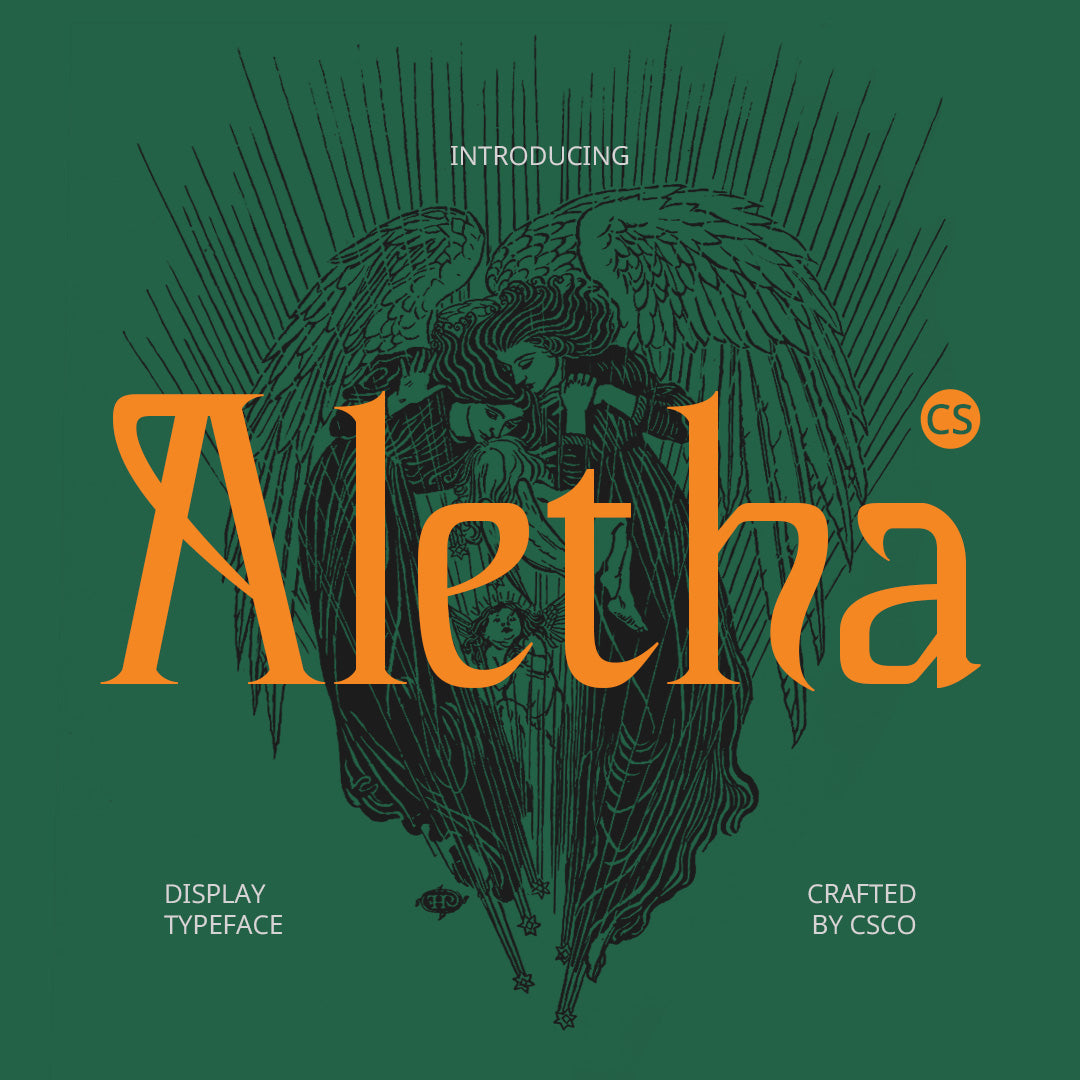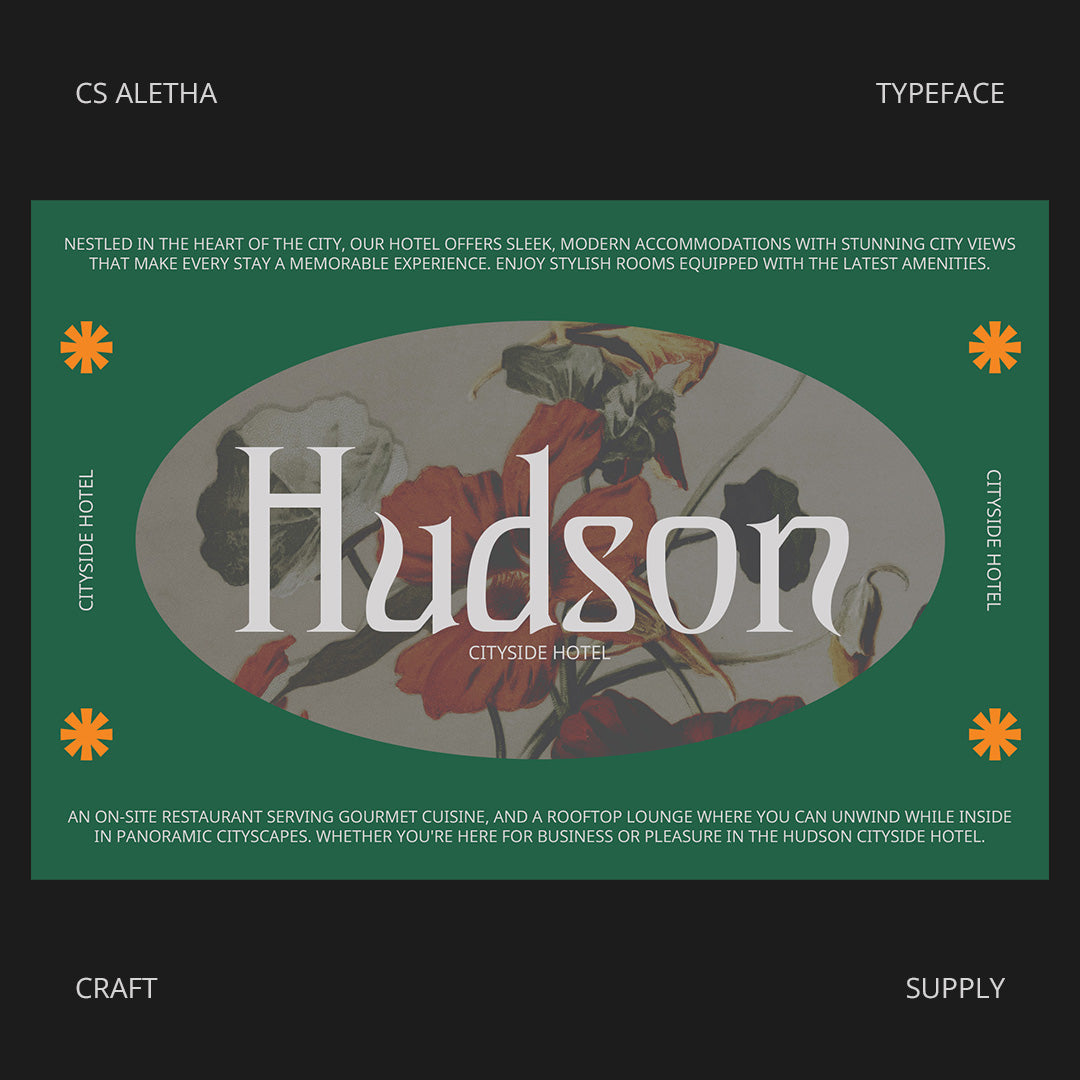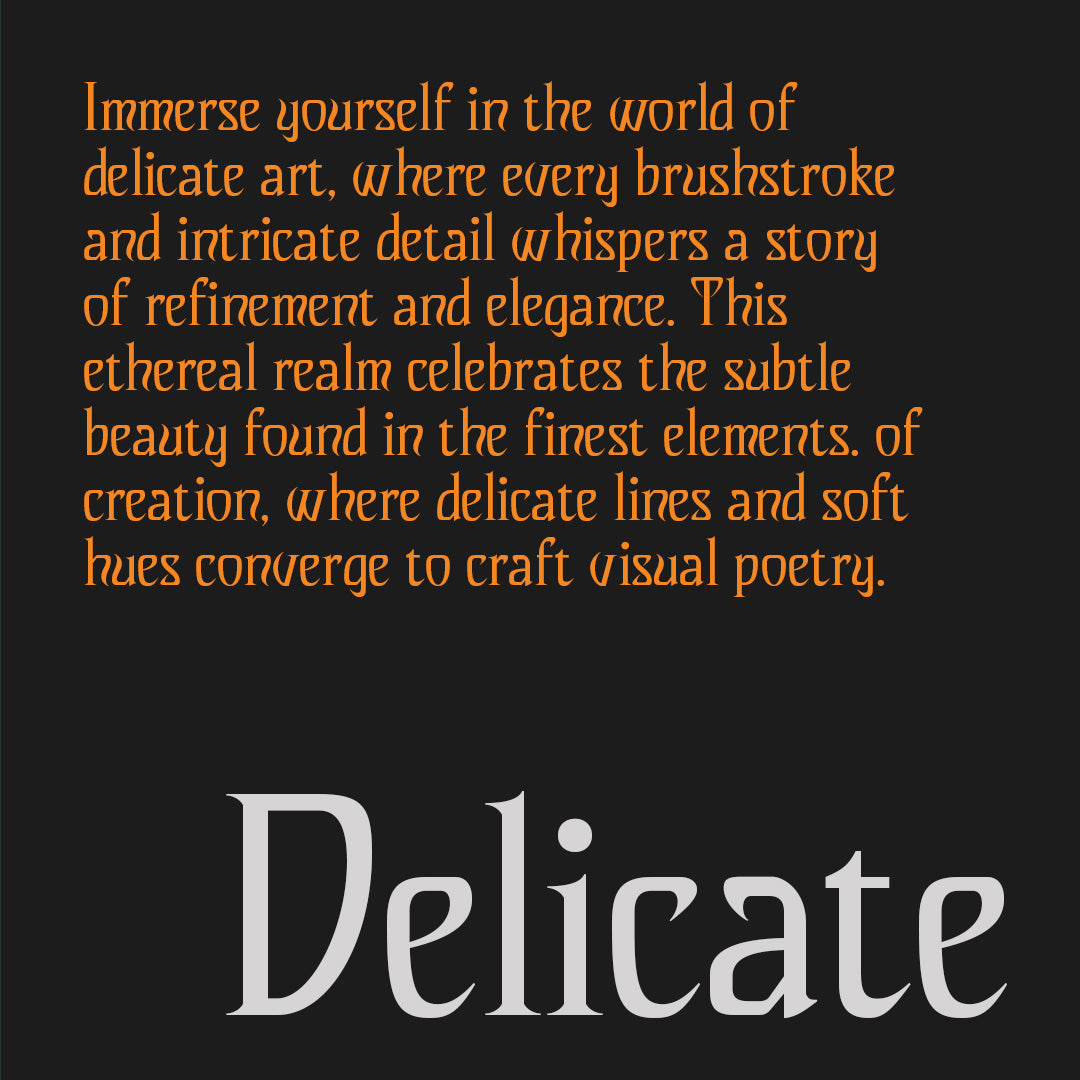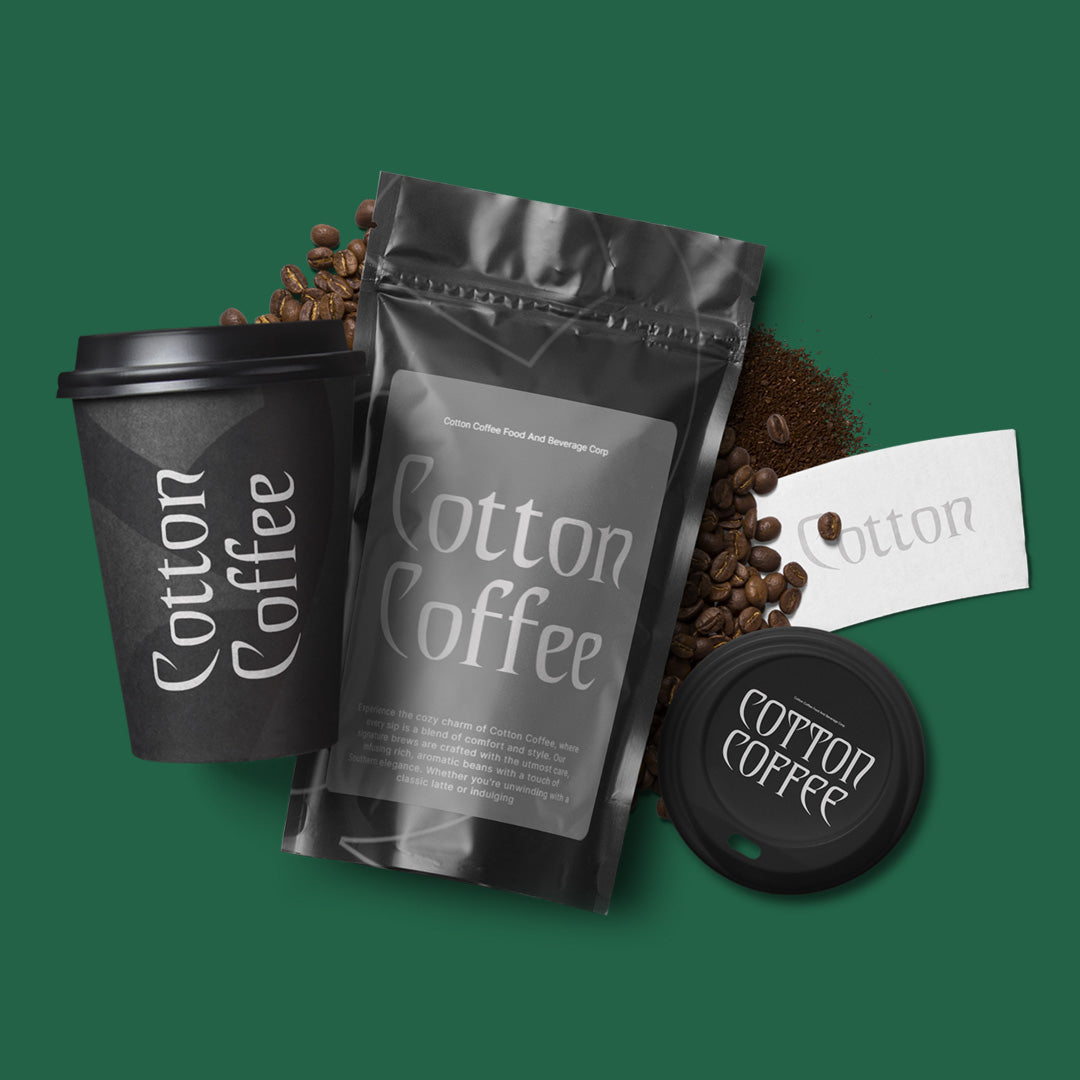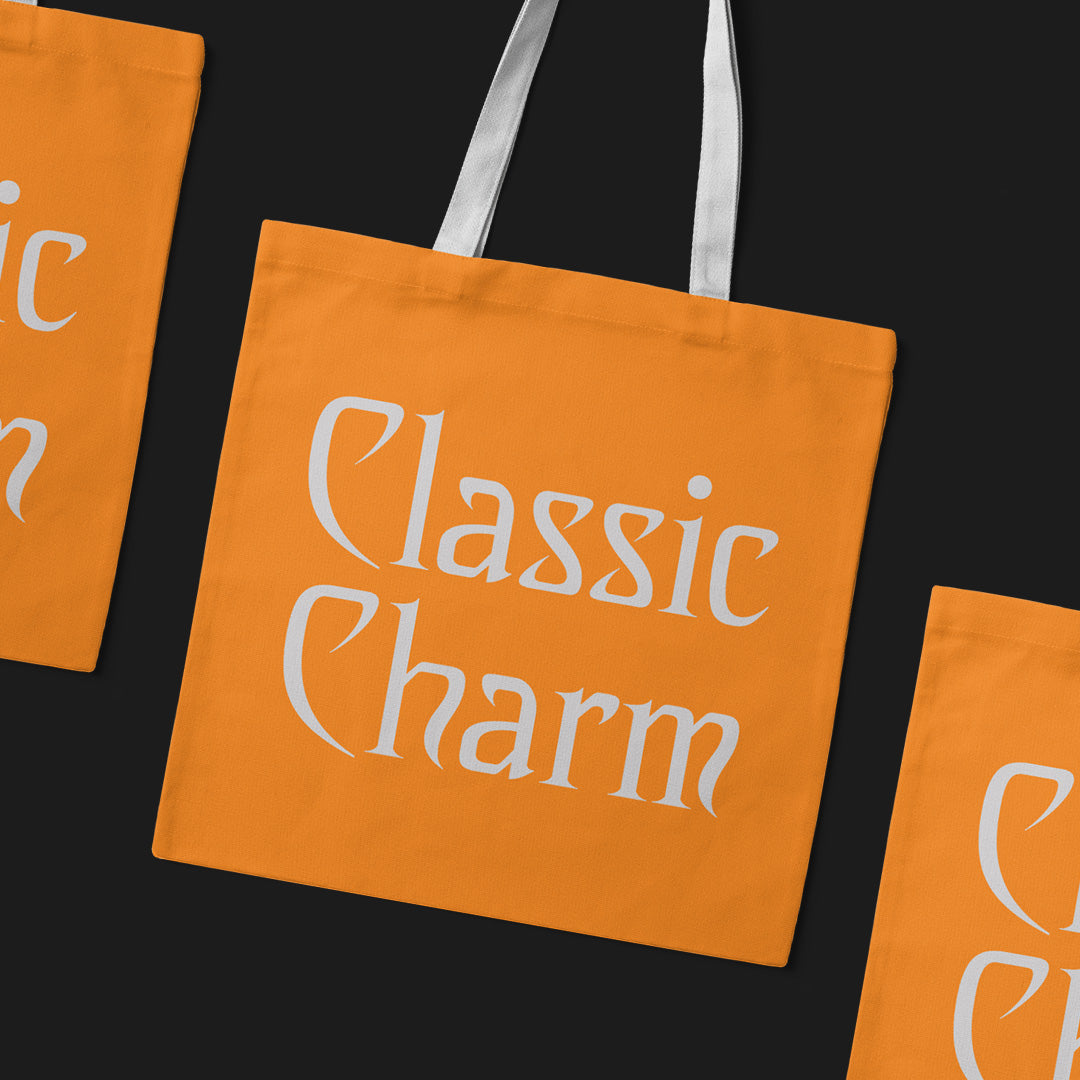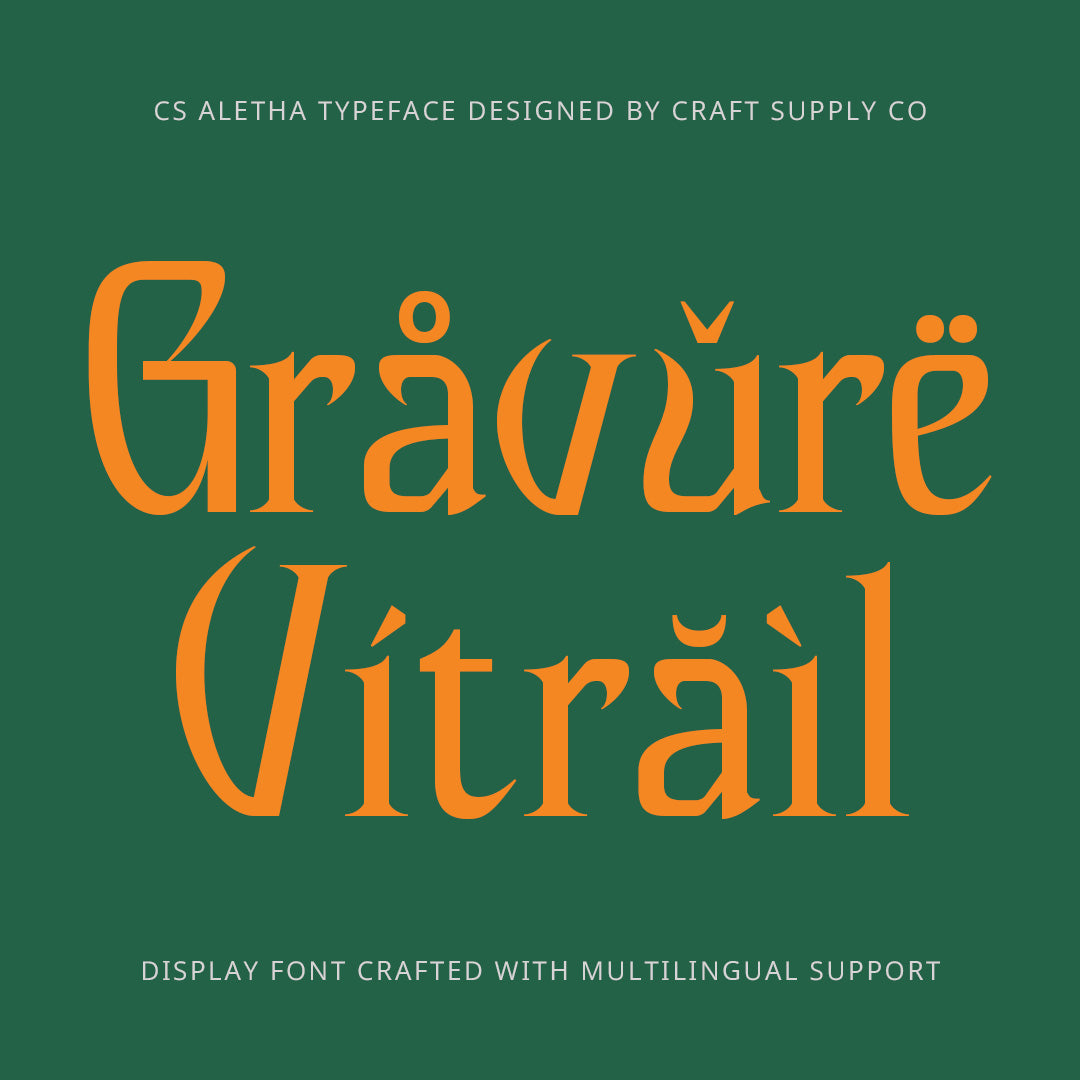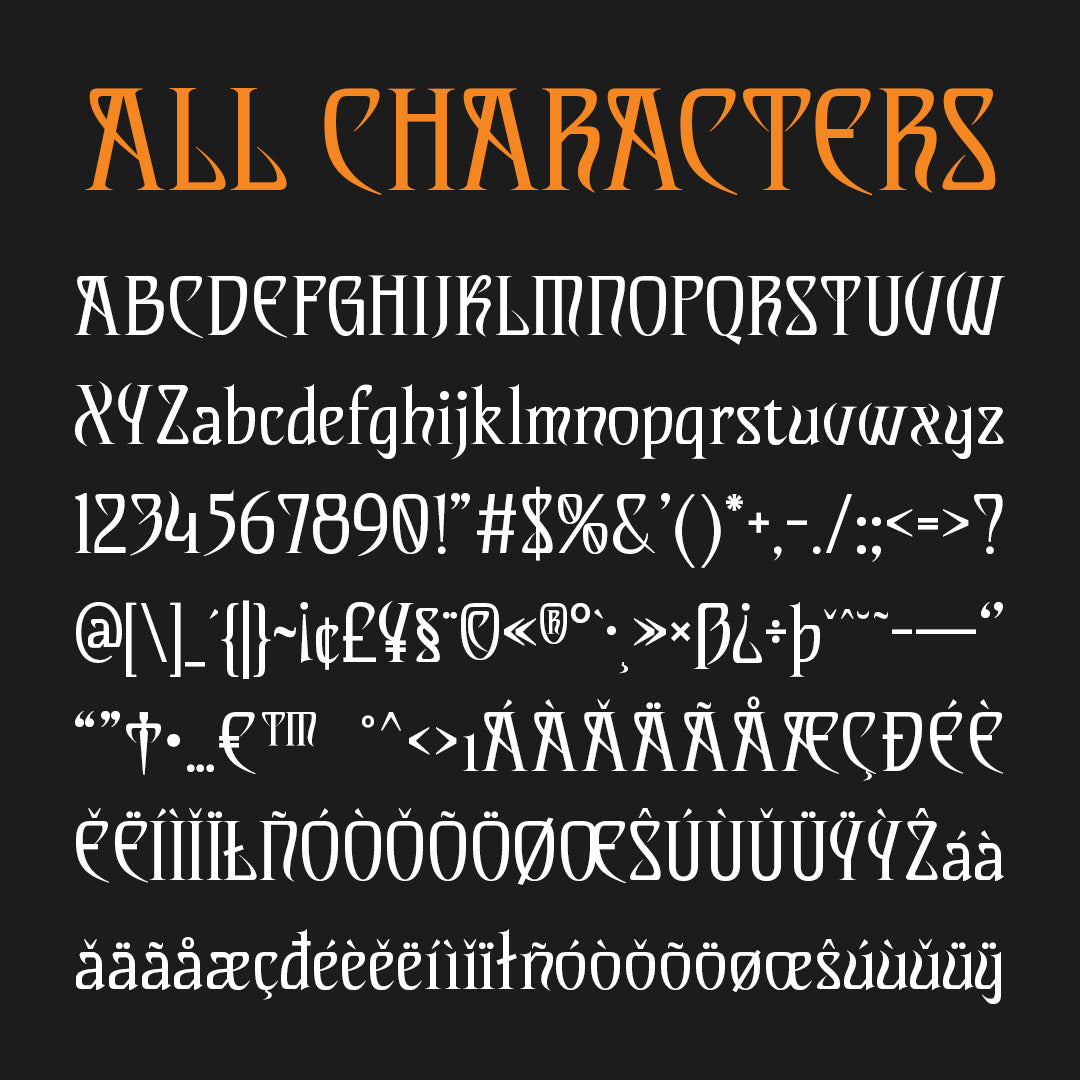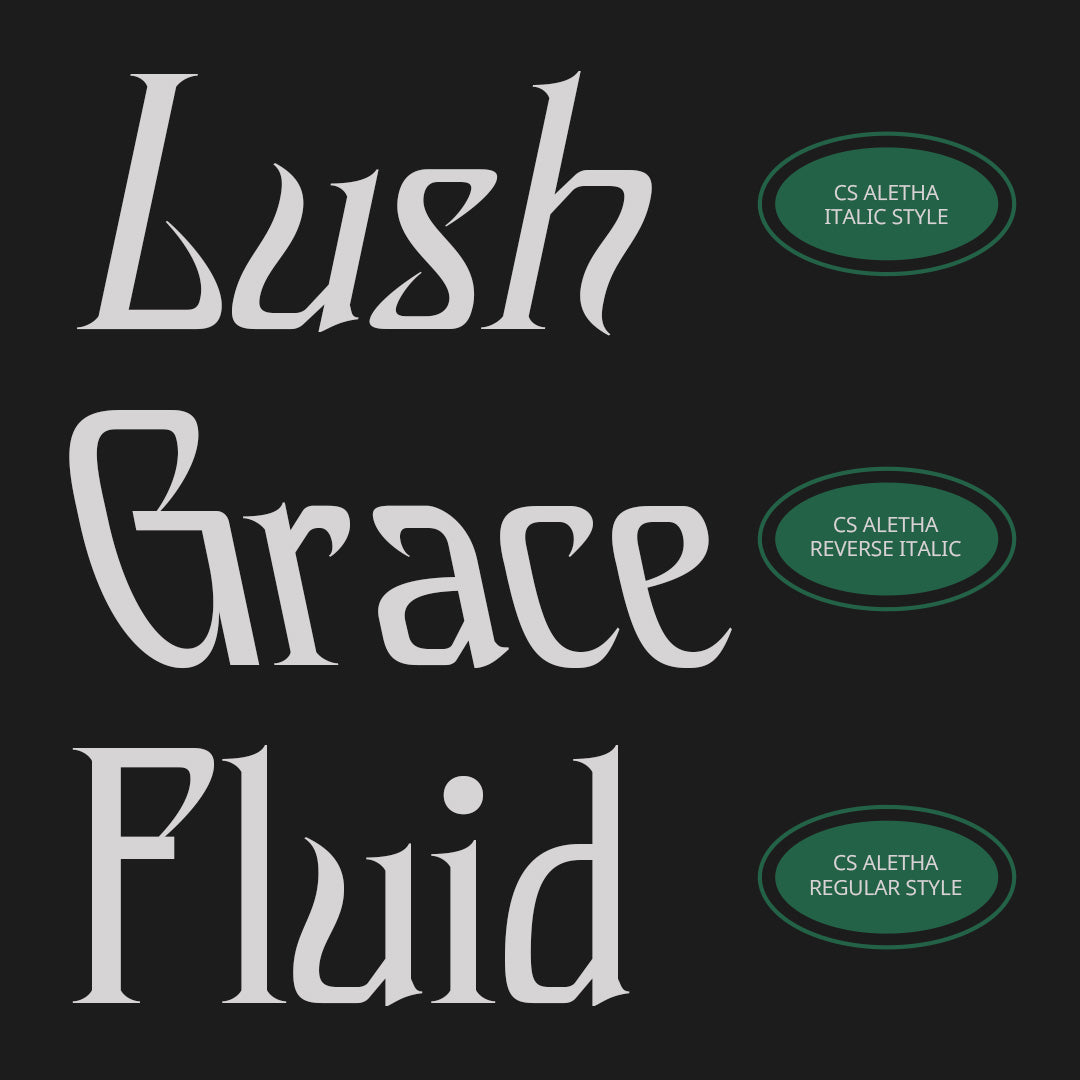
CS Aletha – Classic Font
CS Aletha – Classic Font: Timeless Elegance with a Modern Twist
Modern Display Serif with Unique L and T Shapes
CS Aletha is a modern display serif font that features distinctive L and T shapes with inwardly curved, pointed ends. This unique design element combines modern aesthetics with classic charm, creating a sophisticated and elegant look.
Perfect for Sophisticated Branding and Editorial Design
Ideal for sophisticated branding, editorial design, and elegant invitations, CS Aletha adds a touch of refinement to any project. Its sharp serifs and unique letterforms ensure a striking and memorable visual impact.
Refined, Timeless Quality
The unique, sharp serifs of CS Aletha add a refined, timeless quality to your projects. This blend of classic and modern design ensures that your work stands out with elegance and sophistication.
Enhances Visual Appeal
Whether for high-end branding or elegant editorial layouts, CS Aletha enhances the visual appeal of your designs. Its distinctive and refined characteristics make it perfect for projects aiming to convey a sense of timeless beauty and modern sophistication.
1. CS Aletha Regular
2. CS Aletha Italic
3. CS Aletha Reverse Italic
1. Uppercase and lowercase characters
3. Accents (Supports Multilingual Characters)
CS Aletha – Classic Font is a modern display serif typeface featuring unique L and T shapes with inwardly curved, pointed ends. It includes uppercase and lowercase characters, numerals, punctuation, accents for multilingual support, and comes in Regular, Italic, and Reverse Italic styles.